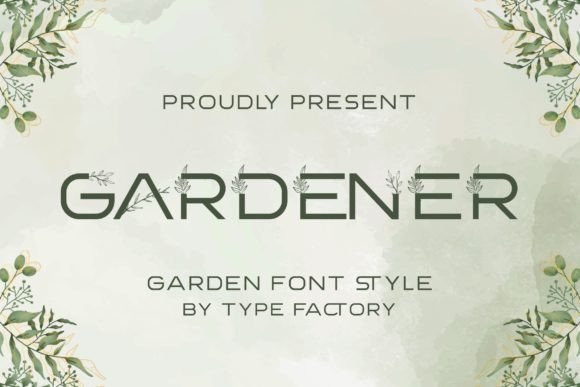
Journey into the world of Gardener Font, a captivating decorative display font that will transform your design projects into masterpieces. This eye-catching creation by TypeFactory is not just a font; it's an expression of creativity and style. Gardener Font belongs to the display font family, making it perfect for headlines, logos, posters, and other attention-grabbing designs.
Unleash your imagination and let Gardener Font bring life to your garden-themed designs. Picture a lush garden, blooming with vibrant flowers and flourishing plants, where the letters dance like delicate petals in the gentle breeze. Gardener Font captures the essence of nature, adding a touch of whimsy and charm to your creations.
With Gardener Font, you have a palette of possibilities at your fingertips. Design enchanting invitations for garden parties, create eye-catching posters for gardening events, or craft personalized greeting cards that blossom with warmth. The possibilities are endless, limited only by your creativity.
But Gardener Font's charm extends beyond garden-themed designs. It's a versatile font that can effortlessly adapt to a wide range of projects. Use it to design modern app interfaces that exude elegance and simplicity. Create stunning logos that leave a lasting impression, conveying your brand's message with style. Or craft captivating social media graphics that captivate your audience and make your posts stand out in the digital jungle.
Gardener Font is not just a font; it's an investment in your creative endeavors. Its PUA encoding makes accessing all the amazing glyphs and ligatures a breeze, ensuring you have the tools to create truly unique and captivating designs.
So, join the creative revolution and embrace Gardener Font. Let its beauty and versatility transform your design projects into masterpieces that resonate with your audience. Discover the Gardener Font difference today and unlock a world of creative possibilities!